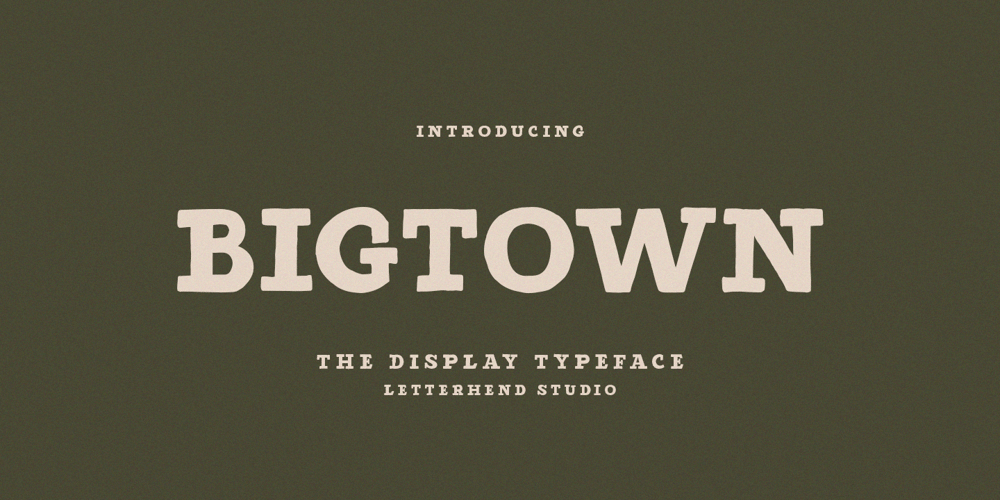
Bigtown
Bigtown font
Bigtown Font Family was designed by Hendry Juanda and published by Letterhend. Bigtown contains 1 styles and family package options. Bigtown – A Slab Serif Typeface. Bigtown is a display font that have a strong and bold looks. This font is made by hand lettering so it looks natural and very suitable for vintage and rustic theme. Perfectly made to be applied especially in logo, and the other various formal forms such as invitations, labels, logos, magazines, books, greeting / wedding cards, packaging, fashion, make up, stationery, novels, labels or any type of advertising purpose.